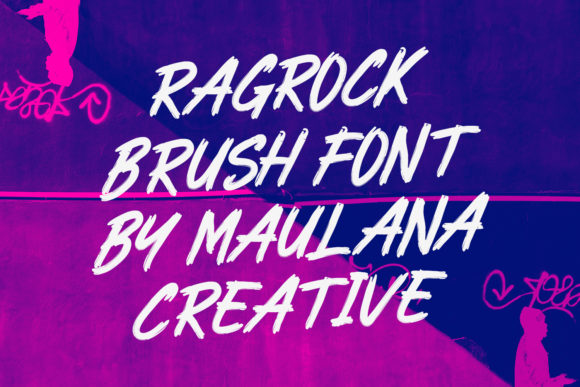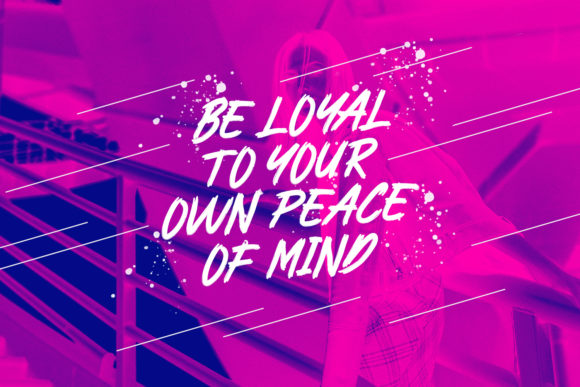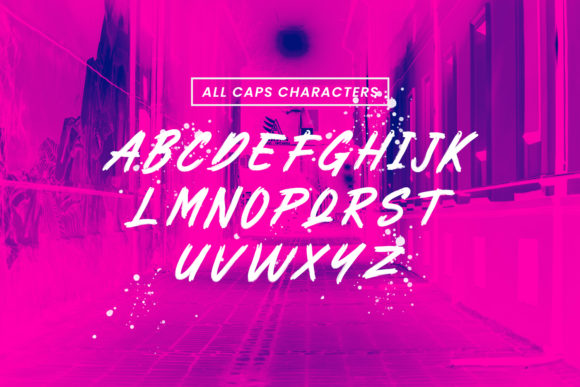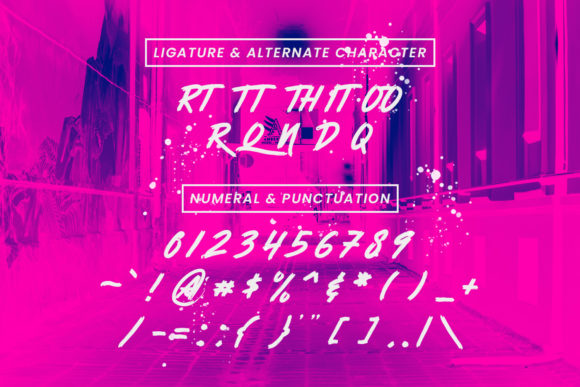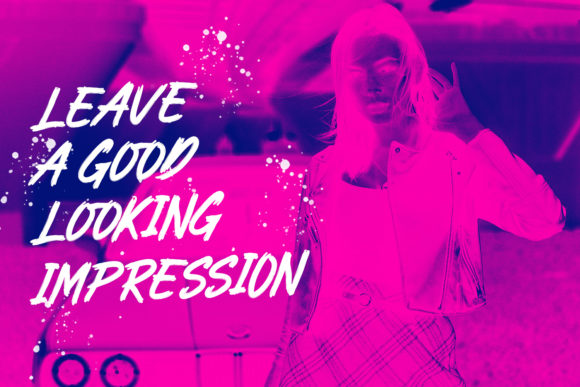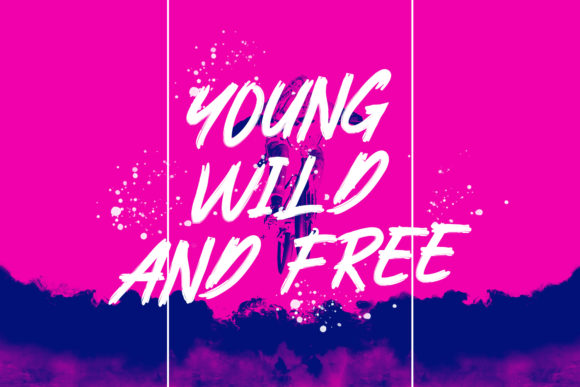
Introduction to Ragrock Font
Imagine you’re brainstorming ideas for your next creative project, and suddenly, the perfect font pops into your mind – one that screams urban charm and effortless cool. That’s exactly what the Ragrock Font does, and it’s here to take your designs to the next level.
As a designer, you know the importance of having a solid design resource that can elevate your work. The Ragrock Font fits the bill, offering a unique blend of boldness and rough texture that’s perfect for a variety of urban or casual designs. With its high-quality design and transparent background, this font is a free download waiting to be added to your arsenal.
Key Features of Ragrock Font
- High-quality, unique design for creative projects and graphic designs
- Ragrock Font features a transparent background, ideal for use on any background
- Perfect for use in logos, branding, and other design projects requiring a unique touch
Honest Review: Ragrock Font
I recently stumbled upon the Ragrock Font, a free download that’s been making waves in the design community. As a designer, I’m always on the lookout for high-quality design resources to elevate my creative projects.
One thing that really stands out about the Ragrock Font is its versatility. It comes in a range of styles, from casual to formal, making it a great addition to any design project. The font is also available with a transparent background, which is a game-changer for designers who want to add a touch of sophistication to their work.
Here are some things that work well with the Ragrock Font: ✨
- High-quality design: The Ragrock Font is beautifully crafted, with a level of detail that’s hard to find in free downloads.
- Customization options: The font comes in a range of styles, making it easy to find the perfect fit for your project.
- Transparent background: This feature is a major plus for designers who want to add a touch of elegance to their work.
However, there are a few limitations to be aware of: ⚠️
- Limited character set: The Ragrock Font may not include all the characters you need for your project.
- Not suitable for large-scale use: While the font is great for small projects, it may not be the best choice for large-scale designs.
Overall, I’m impressed with the Ragrock Font. It’s a great resource for designers who want to add a touch of sophistication to their work. While it may have some limitations, it’s definitely worth considering for your next creative project.
The Ragrock Font is a free, high-quality design resource ideal for creative projects. With its unique style and transparent background, it’s perfect for adding a touch of elegance to your designs.
The Ragrock Font is ideal for various design projects, including:
- Brand logos and identity
- Social media graphics and advertising